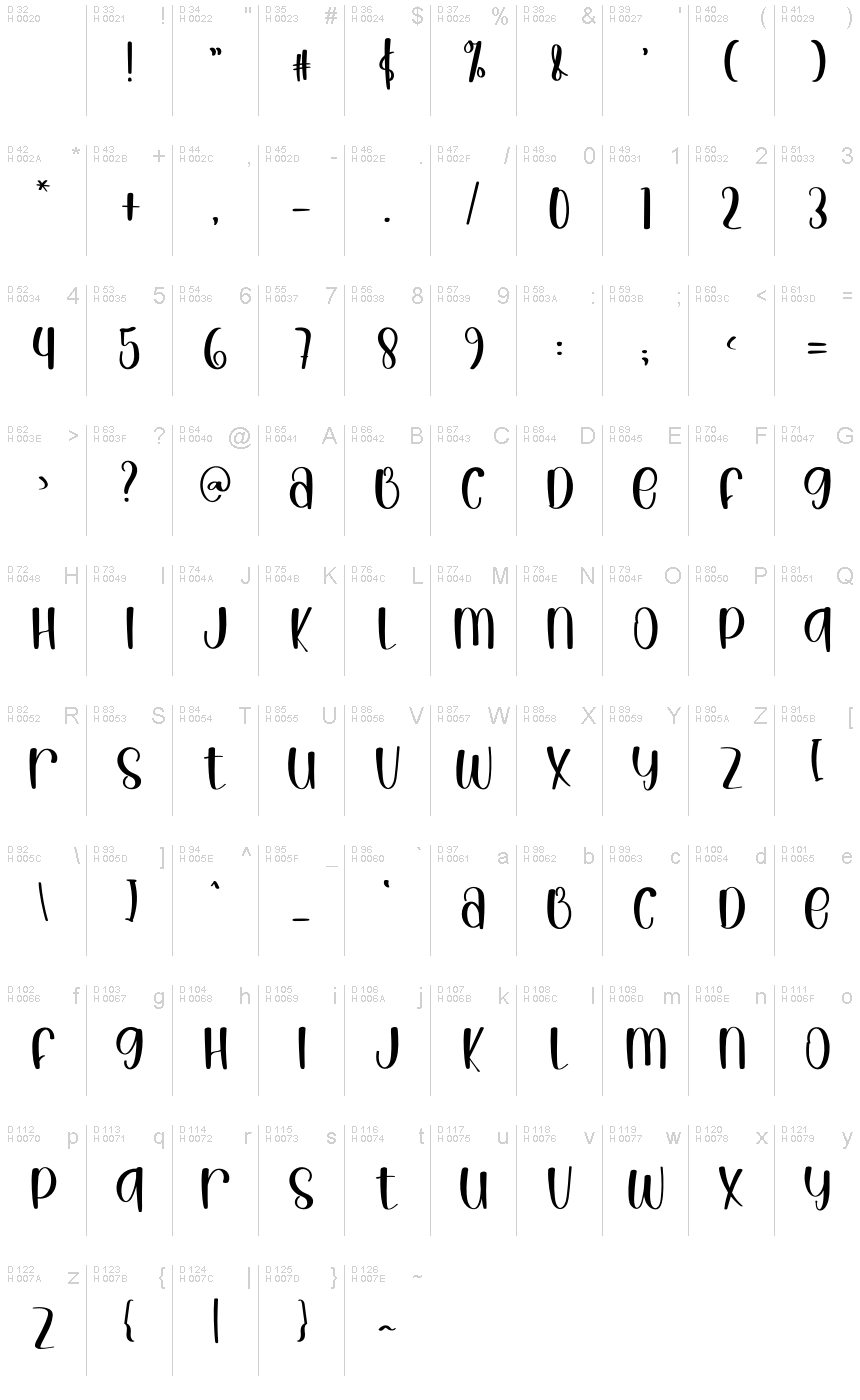
Summer Pumpkins
Summer Pumpkins by PiPi Creative exudes a playful, handwritten charm that brings warmth and personality to any design. Its whimsical curves and expressive forms create a sense of spontaneity, inviting creativity and joyful expression.
Visually striking, this font features both bold strokes and delicate flourishes that perfectly balance vibrancy with elegance. The letters dance across the page, making them particularly suited for projects needing a personal touch-think invitations, social media graphics, or children's book covers.
The inherent warmth of Summer Pumpkins captivates the eye while encapsulating a carefree spirit, establishing it as an ideal choice for branding that seeks to engage audiences on an emotional level. Whether it’s for festive occasions or casual communications, this font effortlessly enhances any creative endeavor.